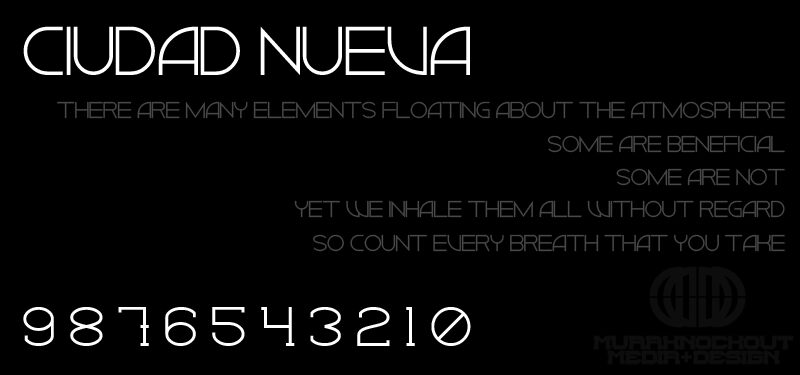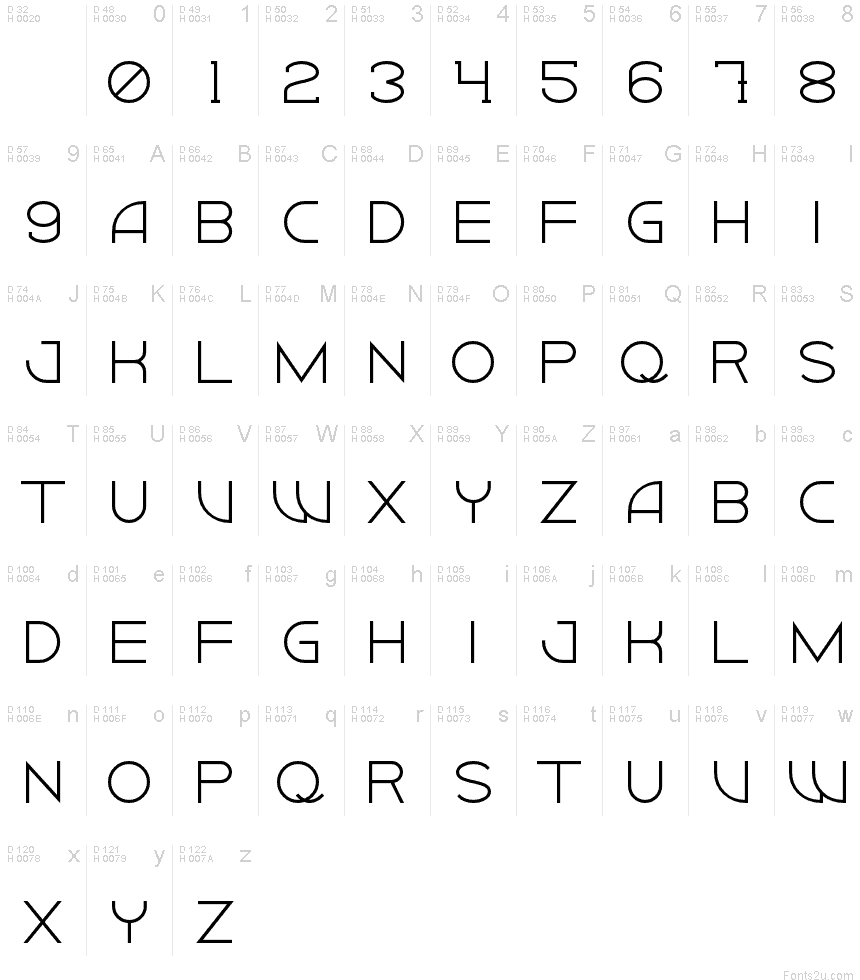
Ciudad Nueva CAPS is a free geometric sans serif with very thin strokes and tall, spacious capitals. Circular forms sit beside sharply pointed diagonals, and several letters use broad proportions that give the alphabet an architectural, fashion-conscious look.
Magazine mastheads are its most convincing setting, especially for fashion, architecture, or cultural publishing. The same refined geometry suits cosmetics packaging, gallery posters, and boutique branding, but editorial titles make the best use of its long horizontal sweep.
La Ciudad Nueva has been updated based on feedback. The update includes a Bold version, revised K and Y, a changed number set, and adjusted kerning.
A lowercase version, symbols, and accents are currently in development to complete the font.